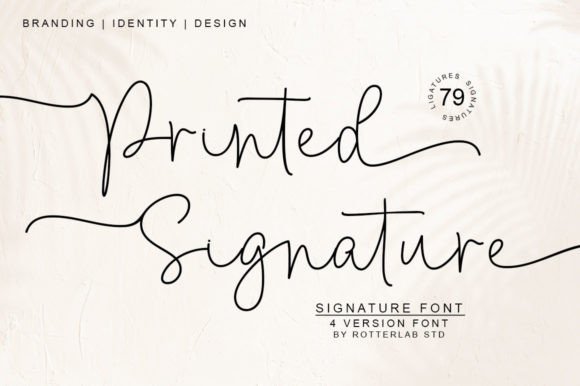
Unleash the Elegance: Printed Signature Font - Your Creative Catalyst
Introducing Printed Signature Font, a script font family that will ignite your passion for captivating designs. This exquisite font, brought to life by rotterlabstudio, is a testament to the beauty and allure of calligraphy, infused with a touch of love that shines through in every letterform.
Printed Signature is more than just a font; it's an artistic expression that will transform your creative projects into masterpieces. Its unique and timeless style sets it apart from the ordinary, demanding attention and admiration. With Printed Signature, you'll discover a world of possibilities, limited only by your imagination.
Step into a Realm of Chic and Beauty
Printed Signature is a font that exudes elegance and sophistication. Its flowing lines and delicate curves dance across the page, creating a visually stunning effect that captivates the eye. Whether you're designing a wedding invitation, a fashion magazine, or a personal branding project, Printed Signature will add a touch of class and refinement that will leave a lasting impression.
Fall in Love with Its Versatility
Printed Signature's versatility is truly remarkable. It seamlessly adapts to various design styles, from classic and timeless to modern and edgy. Its ability to effortlessly blend with different aesthetics makes it a must-have for designers seeking a font that can transcend boundaries and elevate any project.
Unlock Your Creative Potential
With Printed Signature, you'll unlock a new level of creativity. Its ability to evoke emotions and convey messages with its distinctive style will inspire you to create designs that resonate with your audience. Whether you're a seasoned designer or just starting your creative journey, Printed Signature will be your trusted companion, helping you turn your visions into reality.
A Font That Speaks to the Heart
Printed Signature is more than just a collection of letters; it's a font that speaks to the heart. Its delicate strokes and graceful flourishes convey a sense of warmth and intimacy that will connect with your audience on a deeper level. Use Printed Signature to create designs that touch hearts and leave a lasting impact.
Experience the Printed Signature Difference
Printed Signature is not just another font; it's an investment in your creative future. Its versatility, elegance, and emotional appeal make it an invaluable asset for any designer. Discover the Printed Signature difference today and embark on a creative journey that will redefine your design possibilities.